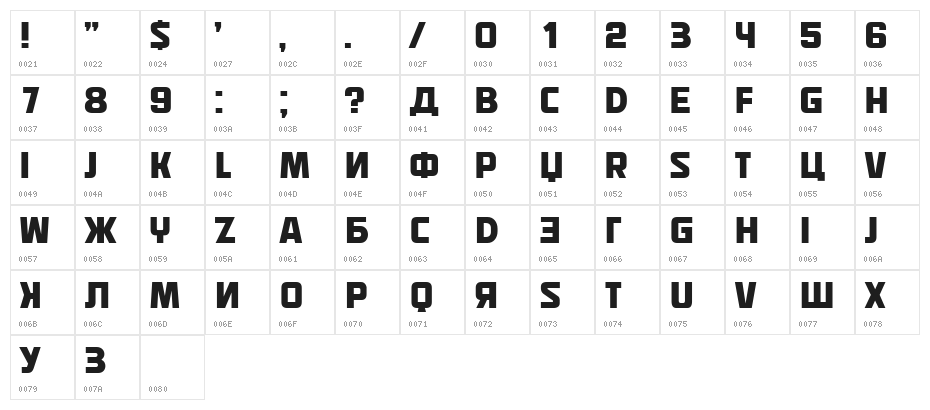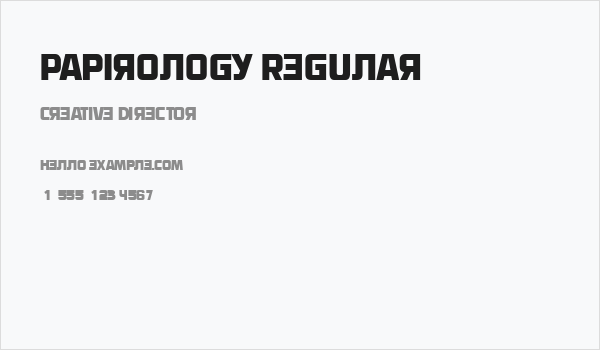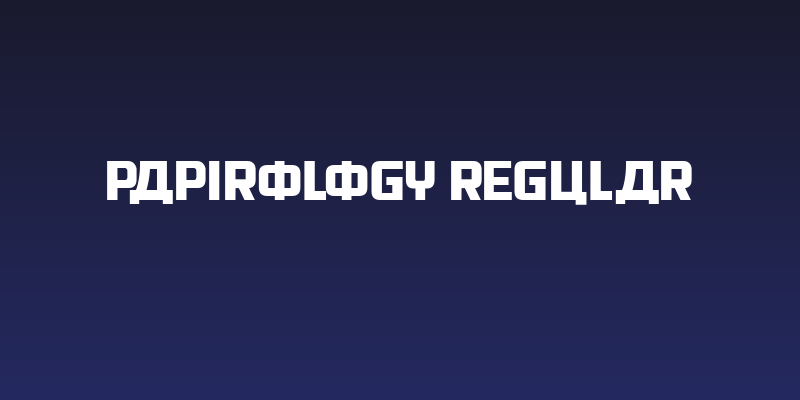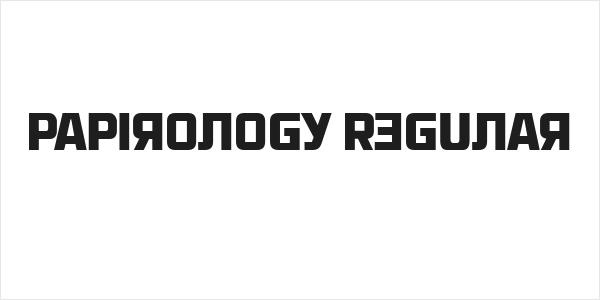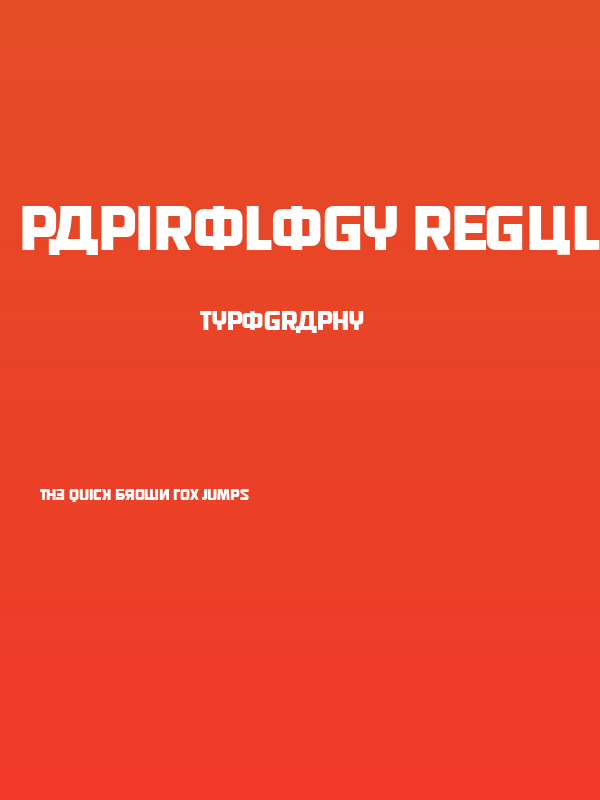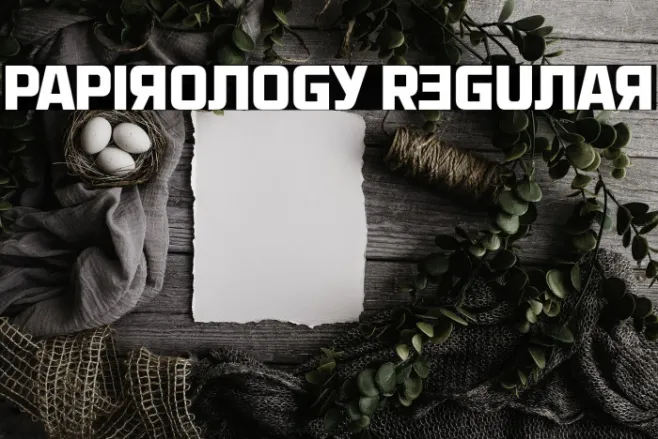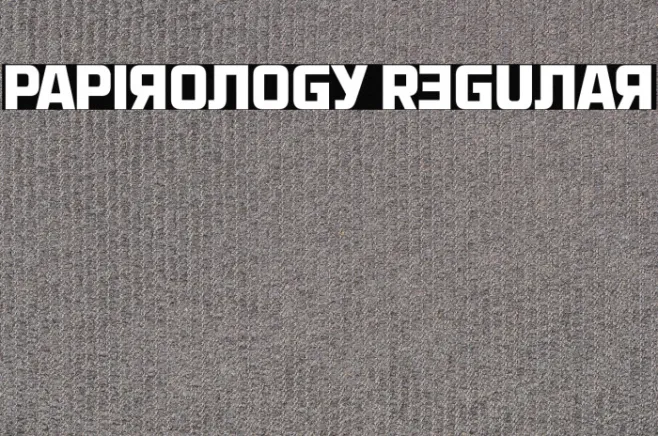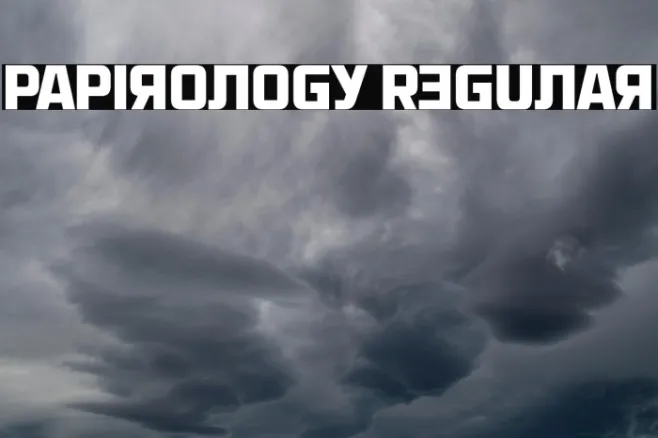
Papirology Regular Font
Papirology Regular Description
This font exhibits a bold and robust style with strong geometric shapes and a modern aesthetic. The characters are blocky and wide, providing a sense of stability and strength. The uppercase letters are particularly striking, with consistent stroke widths and angular edges that contribute to a contemporary look. The numerals and special characters maintain this boldness, ensuring uniformity across all glyphs. The font's design is clean and straightforward, making it suitable for impactful headlines or branding materials where clarity and presence are essential.